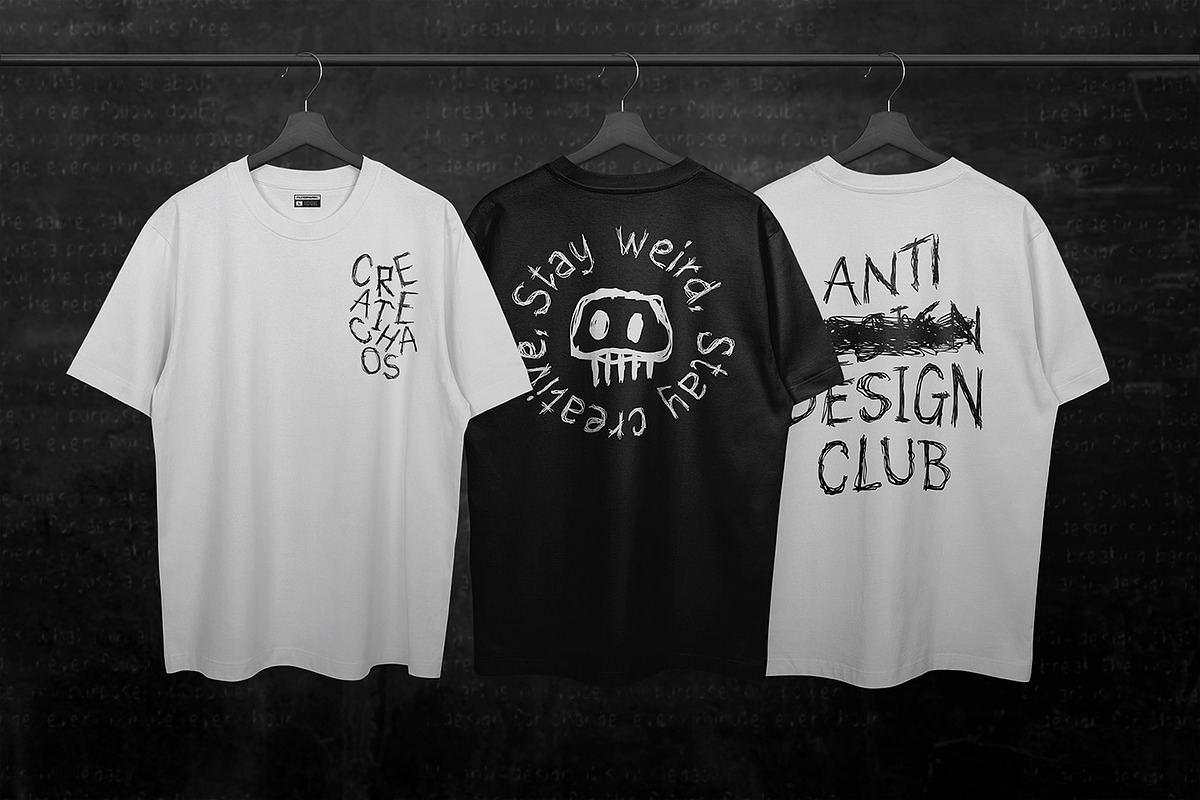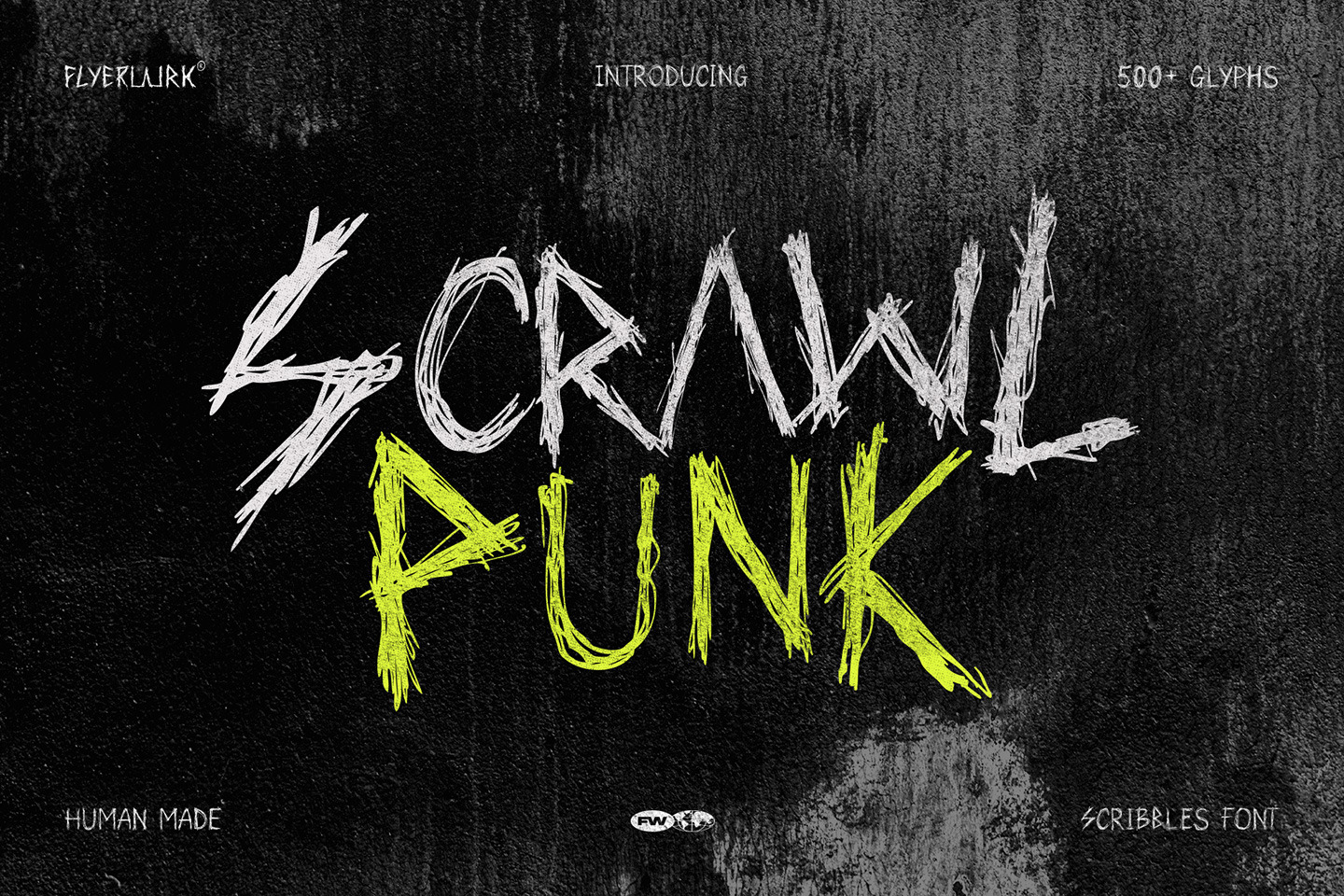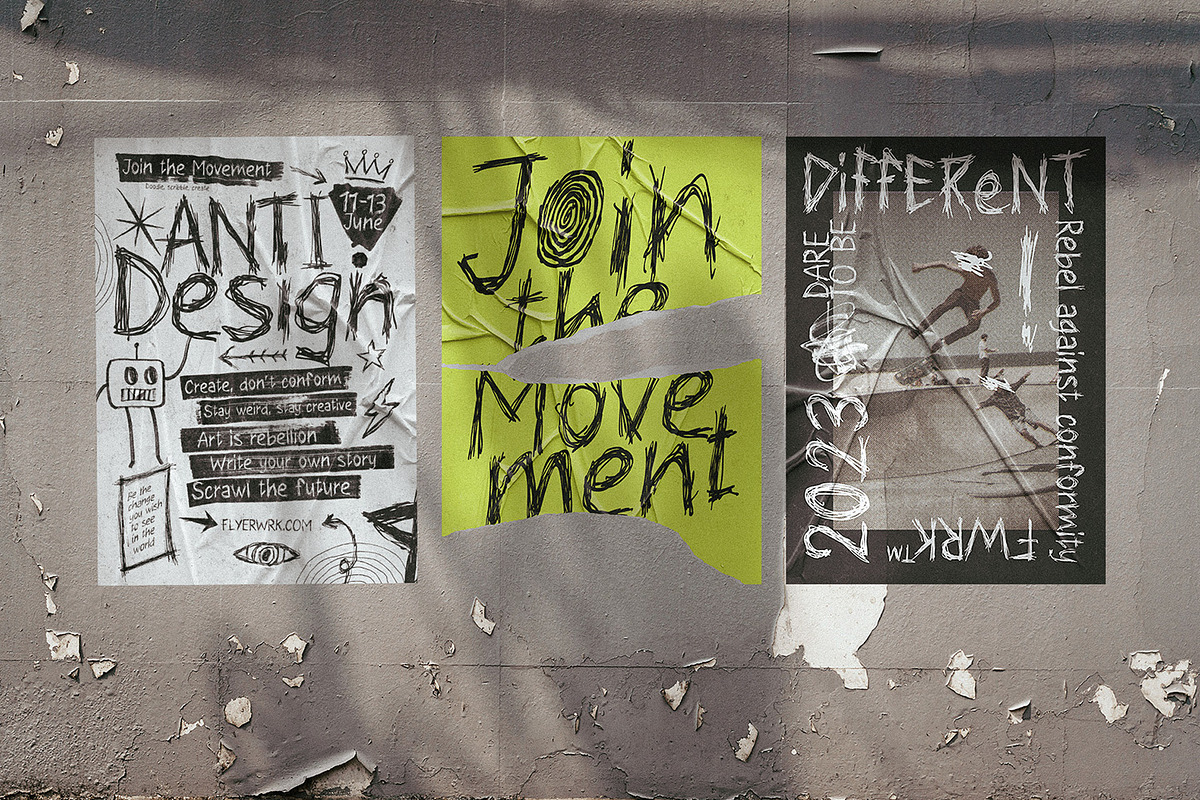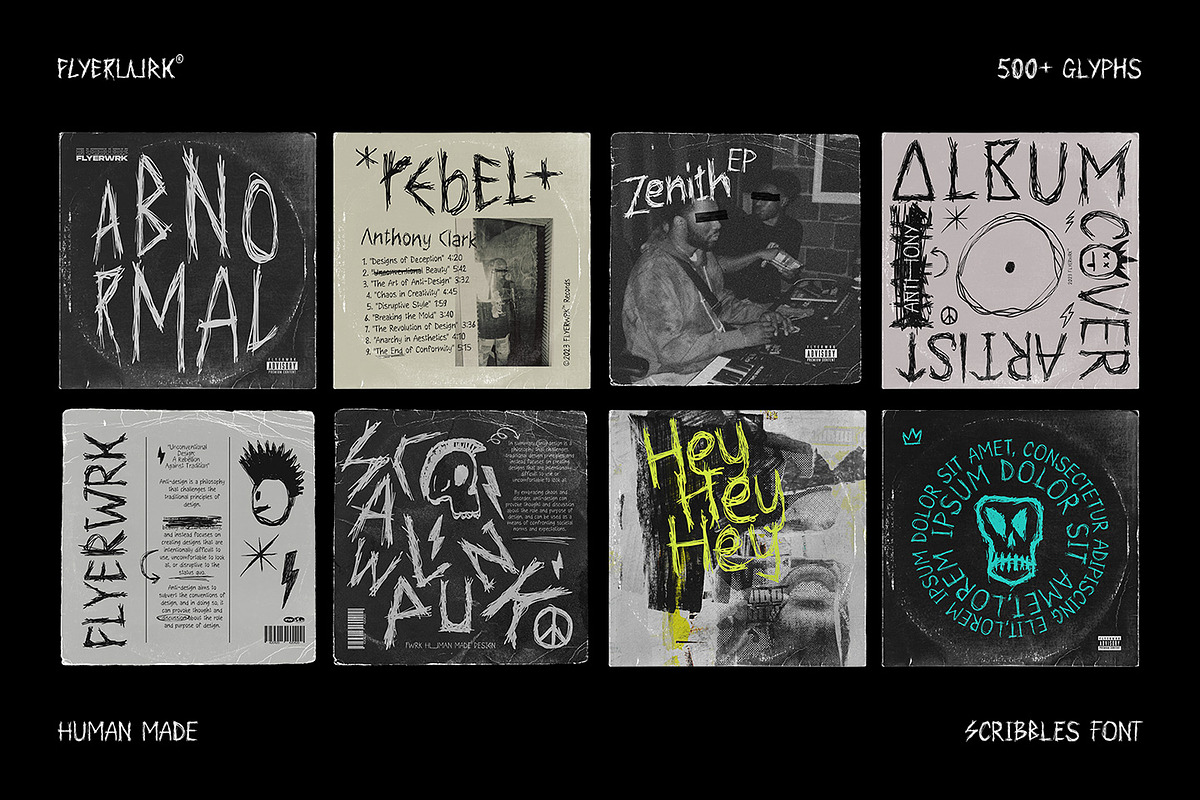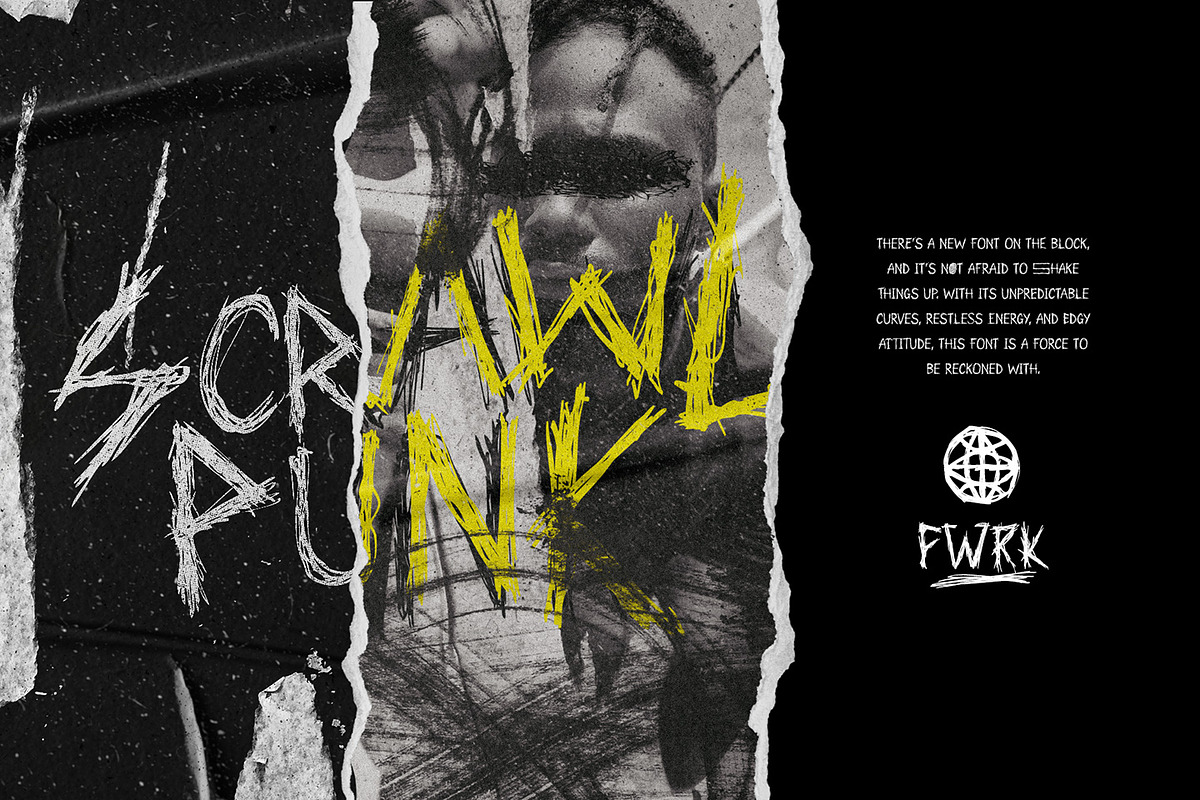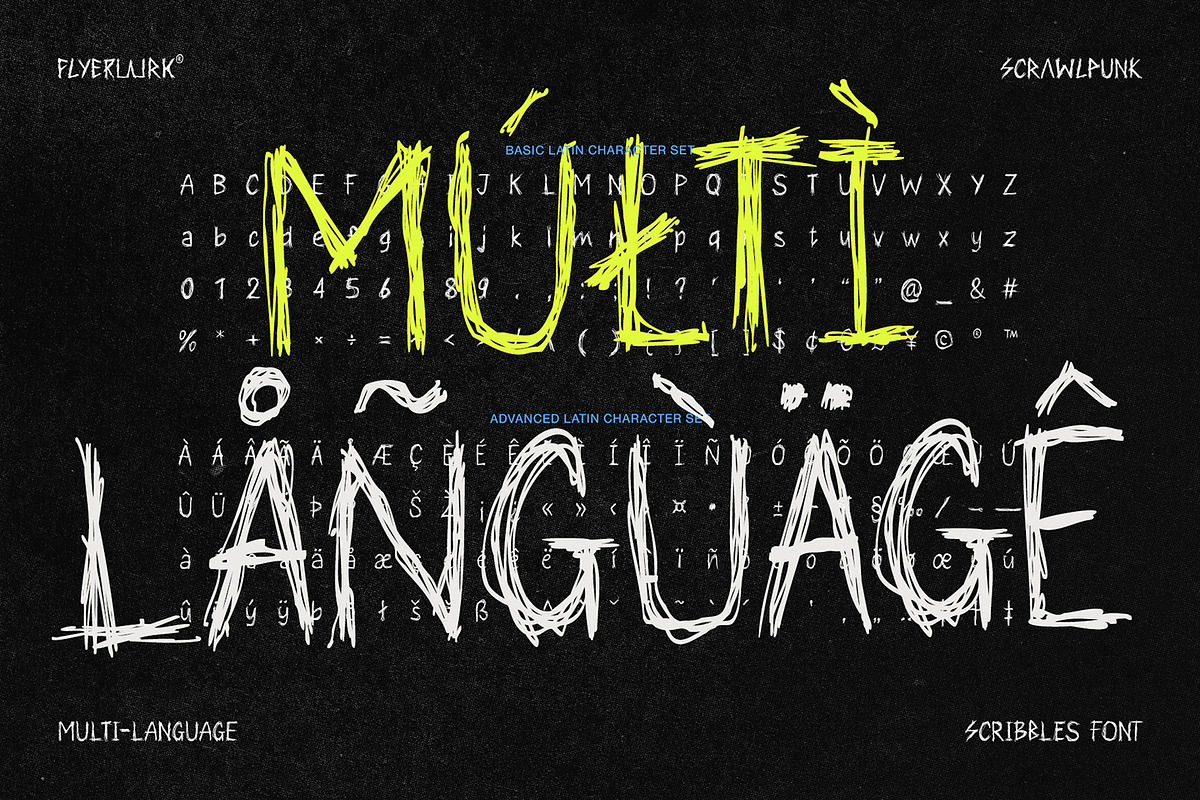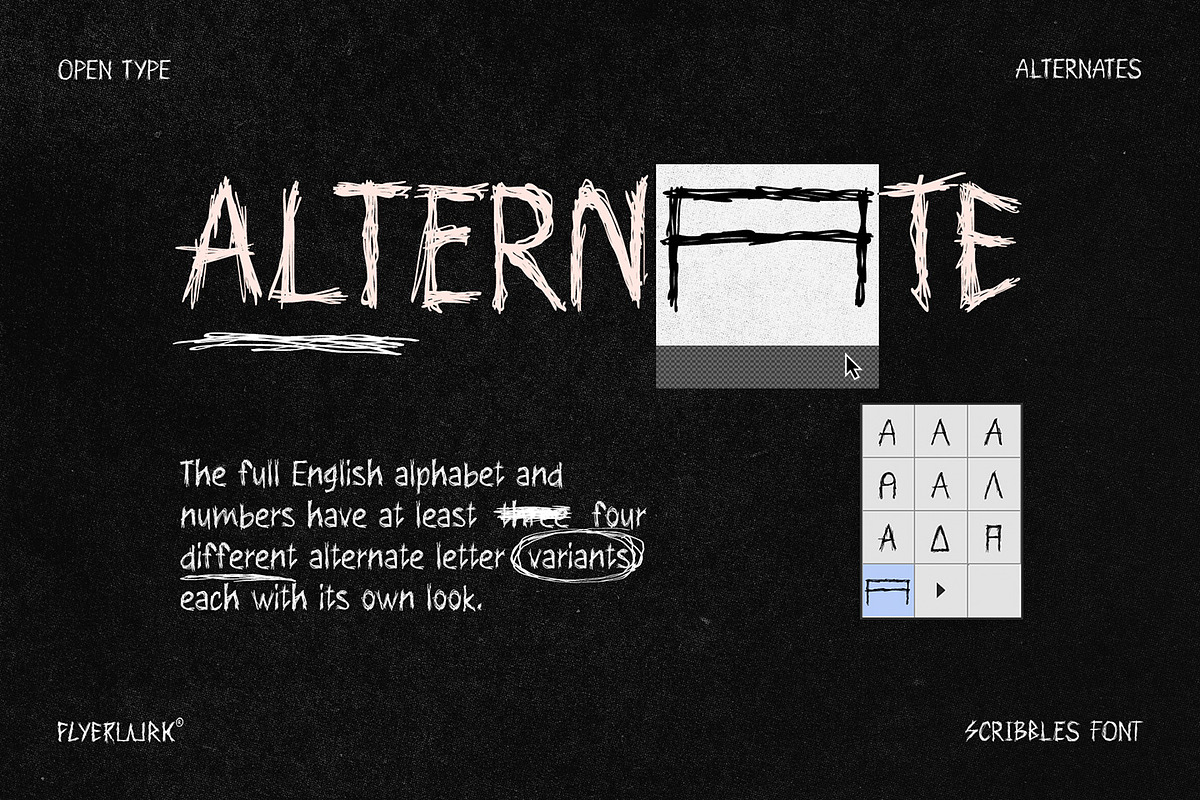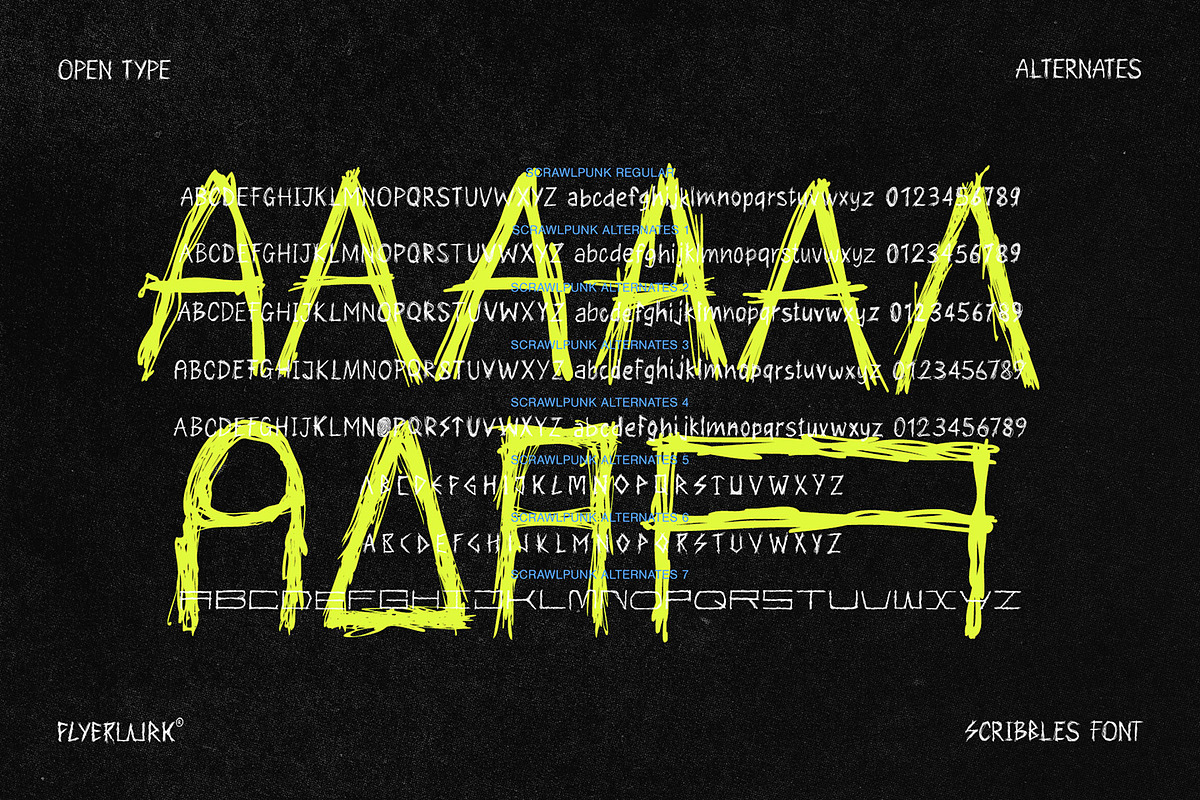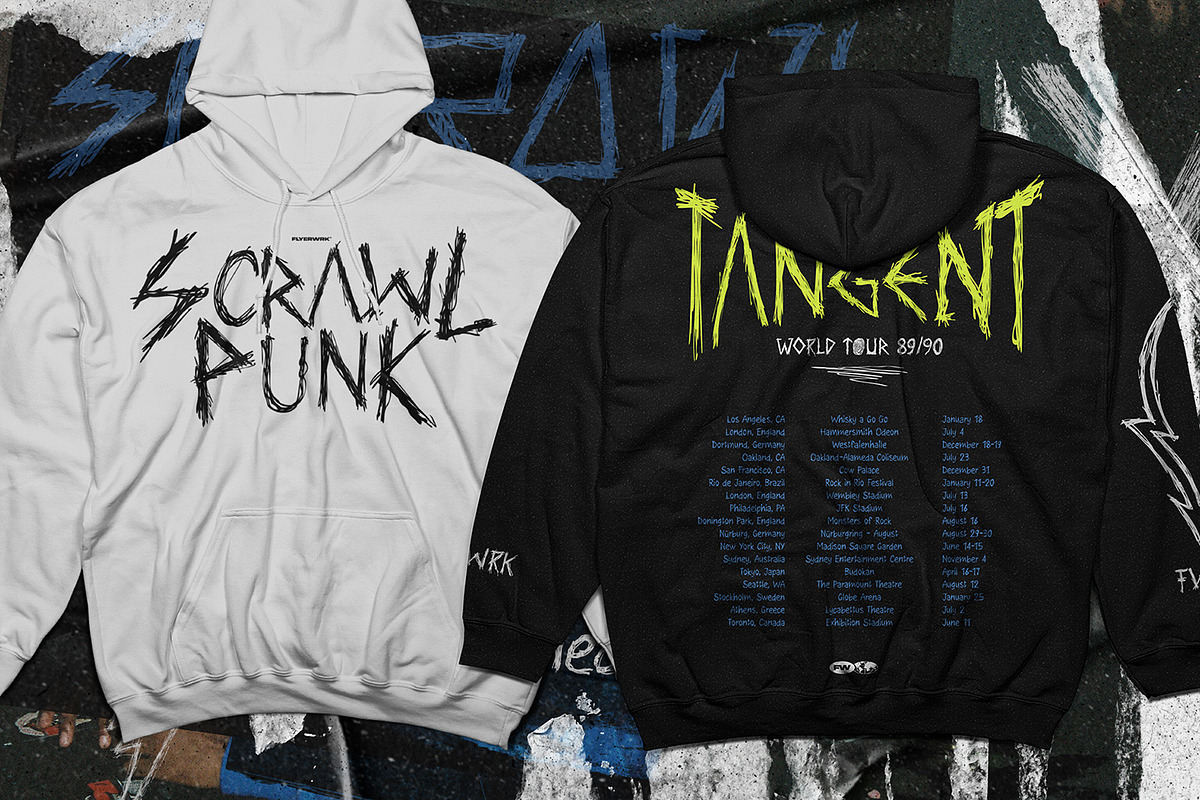
Scrawlpunk - Scribbles Font
Introducing Scrawlpunk: The Unconventional Handwritten Typeface for Fearless Creatives
Unleash your inner artist with Scrawlpunk, a groundbreaking handwritten typeface that defies convention and celebrates the beauty of creative chaos. Painstakingly hand-scribbled by passion, Scrawlpunk captures the essence of raw, authentic handwriting, giving your projects a distinctive edge that sets them apart from the crowd.
Inspired by the rebellious spirit of the anti-design movement, Scrawlpunk breathes life into your wildest projects – from eye-catching headlines and evocative quotes to mesmerizing album covers and captivating editorial designs. Its daring personality shines in print posters, abstract collages, and edgy lookbooks, creating a visual experience that's impossible to ignore.
Scrawlpunk is not just a font; it's an invitation to explore the limitless possibilities of your imagination. With advanced Latin character sets and a treasure trove of over 500 glyphs, Scrawlpunk empowers you to experiment and push the boundaries of your creativity. To further enhance your designs, the typeface includes a collection of hand-drawn elements and symbols that harmonize beautifully with its unique character.
Dare to be different with Scrawlpunk – the unconventional handwritten typeface that emboldens creatives to embrace their originality and make their mark on the world.
The full English alphabet and numbers have at least four different alternate letter variants, each with its own look.